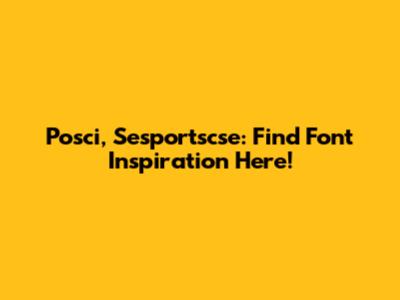
- Dive into Font Foundries: This is where the magic happens! Font foundries are like the artisan workshops of the typography world. They're home to talented type designers who pour their hearts and souls into crafting unique and expressive fonts. Some popular foundries you should definitely check out include: TypeTogether, Commercial Type, House Industries, and MyFonts. Browse their collections, use their filtering options (like style, weight, and features), and read the font descriptions carefully to get a feel for their personality.
- Explore Online Font Marketplaces: These are your one-stop shops for a massive selection of fonts from various designers and foundries. Websites like Adobe Fonts, Google Fonts, Fontspring, and Creative Market offer a vast library of typefaces, often with convenient search and preview tools. Adobe Fonts is particularly awesome if you're already an Adobe Creative Cloud subscriber, as it gives you access to thousands of fonts that you can easily activate and use in your projects.
- Use Font Identification Tools: Ever stumbled upon a design with a font you absolutely love but have no idea what it is? Fear not! Font identification tools are here to save the day. Websites like WhatTheFont! and Font Identifier allow you to upload an image of the font, and they'll analyze it to identify potential matches. Keep in mind that these tools aren't always perfect, especially with heavily stylized or modified fonts, but they can be a great starting point.
- Pay Attention to Font Tags and Categories: When browsing font marketplaces or foundries, pay close attention to the tags and categories associated with each font. These tags often provide valuable clues about the font's style and intended use. Look for tags like "modern," "geometric," "elegant," "sporty," "tech," or "display" to narrow down your search and find fonts that align with the Posci or Sesportscse aesthetic.
- Create Mood Boards: Before you even start searching for fonts, take some time to create a mood board that captures the overall feeling and visual direction you're aiming for. Include images, colors, textures, and other design elements that resonate with the Posci or Sesportscse vibe. This will help you stay focused and make more informed decisions when choosing fonts.
- Consider the Context: Before you start slapping fonts onto everything, think about the overall context of your design. What is the purpose of the design? Who is your target audience? What message are you trying to convey? The answers to these questions will help you determine which fonts are most appropriate for the task at hand. A Posci-inspired font might be perfect for a high-end fashion brand, while a Sesportscse-inspired font might be a better fit for a sports equipment company.
- Pair Fonts Strategically: Font pairing is an art form in itself. The goal is to create a harmonious and visually appealing combination of fonts that work together to enhance the overall design. A common approach is to pair a display font (used for headlines and titles) with a more readable body text font. When pairing fonts, consider factors like contrast, weight, and style. A general rule of thumb is to avoid pairing fonts that are too similar, as this can create a sense of visual monotony. Instead, look for fonts that complement each other while still maintaining their own distinct personalities.
- Pay Attention to Hierarchy: Typography plays a crucial role in establishing visual hierarchy in your designs. Use different font sizes, weights, and styles to guide the viewer's eye and highlight the most important information. For example, you might use a large, bold Posci-inspired font for the main headline, a slightly smaller and lighter Sesportscse-inspired font for subheadings, and a clean, readable sans-serif font for the body text. Experiment with different typographic treatments to create a clear and effective visual hierarchy.
- Use White Space Effectively: White space (also known as negative space) is the empty space around and between design elements. It's just as important as the elements themselves, as it helps to create a sense of balance, clarity, and visual breathing room. Don't overcrowd your designs with too much text or too many visual elements. Instead, use white space strategically to highlight your typography and make it more impactful. Proper use of white space can also improve readability and prevent your designs from feeling cluttered or overwhelming.
- Experiment with Kerning and Tracking: Kerning refers to the space between individual letters, while tracking refers to the overall spacing between all the letters in a word or phrase. Adjusting the kerning and tracking can significantly impact the readability and visual appeal of your typography. Tightening the kerning can create a more compact and modern look, while loosening the tracking can create a more airy and spacious feel. Experiment with different kerning and tracking settings to find what works best for your chosen fonts and design context.
Hey guys! Ever found yourself staring blankly at a design, wondering what font would really make it pop? Or maybe you're deep into creating a brand identity and need that perfect typeface to scream 'this is us!' Well, you're in the right place! Today, we're diving deep into the world of Posci and Sesportscse inspired fonts. These aren't just random names; they represent a whole vibe, a certain je ne sais quoi in the design world. We'll explore what makes them tick, where you can find fonts that capture their essence, and how to use them to seriously level up your projects. So, buckle up, font fanatics – it's gonna be a typographically awesome ride!